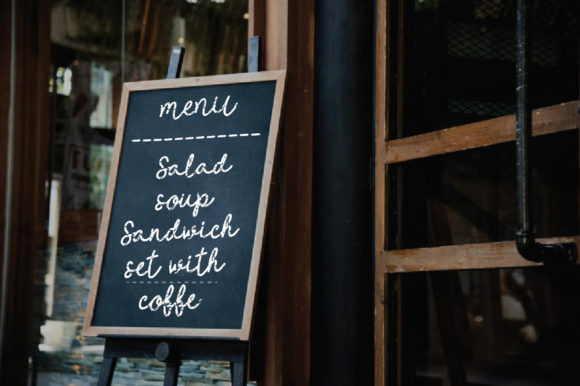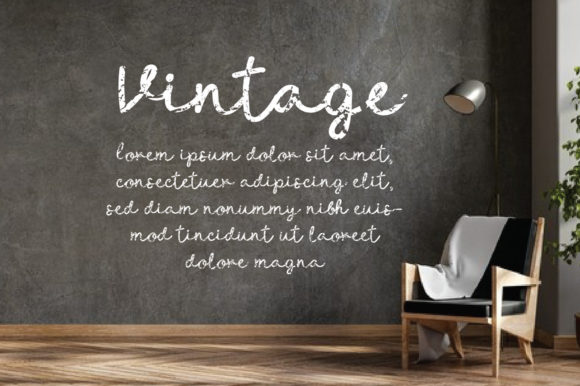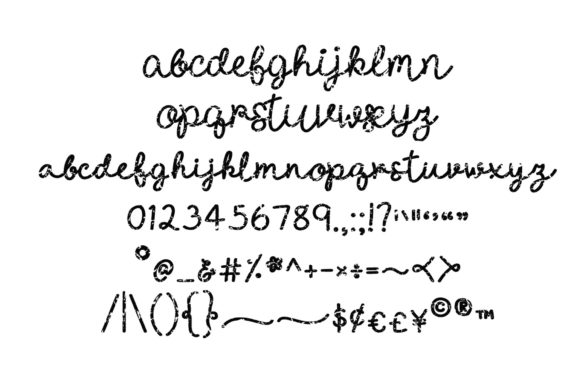
Introducing Handyman Script Rustic: The Perfect Font for Unique Designs
Are you a designer or crafter looking for a font that adds a touch of rustic charm to your work? Look no further than Handyman Script Rustic, a lovely and rough-textured handwritten font that’s perfect for creating eye-catching logos, branding, and quotes.
Handwritten fonts have a way of adding a personal touch to any design. They convey a sense of warmth, authenticity, and uniqueness that’s hard to replicate with more formal fonts. And Handyman Script Rustic is no exception. With its rough-textured, handwritten feel, this font is sure to add a touch of character to any project.
What Makes Handyman Script Rustic Special?
So, what sets Handyman Script Rustic apart from other fonts? For starters, every letter has a unique and beautiful touch that will make your design come alive. The font’s rustic texture gives it a organic, handmade feel that’s perfect for designers and crafters who want to add a touch of personality to their work.
Handyman Script Rustic is a versatile font that’s perfect for a wide range of design applications. Here are just a few ideas to get you started:
- Logos: Create a unique and memorable logo for your business or brand with Handyman Script Rustic. The font’s rustic texture and handwritten feel make it perfect for logos that need to stand out.
- Branding: Use Handyman Script Rustic to add a touch of personality to your branding materials, such as business cards, letterheads, and packaging.
- Quotes: Add a touch of inspiration to your designs with Handyman Script Rustic. The font’s beautiful, handwritten letters are perfect for creating eye-catching quotes and posters.
Tips for Using Handyman Script Rustic
Here are a few tips for getting the most out of Handyman Script Rustic:
- Use it sparingly: While Handyman Script Rustic is a beautiful font, it can be overwhelming if used too much. Use it sparingly to add a touch of personality to your design.
- Experiment with colors: The rustic texture of Handyman Script Rustic looks great in a variety of colors. Experiment with different colors to find the one that works best for your design.
- Pair it with other fonts: Handyman Script Rustic looks great when paired with other fonts. Try pairing it with a clean, sans-serif font to create a striking contrast.
Why Designers and Crafters Love Handyman Script Rustic
So, why do designers and crafters love Handyman Script Rustic? Here are just a few reasons:
- Unique and authentic: Handyman Script Rustic has a unique and authentic feel that’s hard to replicate with other fonts.
- Easy to read: Despite its rustic texture, Handyman Script Rustic is easy to read, making it perfect for designs that need to communicate a message.
- Versatile: Handyman Script Rustic is a versatile font that can be used in a wide range of design applications.
In conclusion, Handyman Script Rustic is a beautiful and versatile font that’s perfect for designers and crafters who want to add a touch of rustic charm to their work. With its unique and authentic feel, easy readability, and versatility, it’s no wonder that Handyman Script Rustic is a popular choice among designers and crafters. So why not give it a try and see how it can elevate your designs?